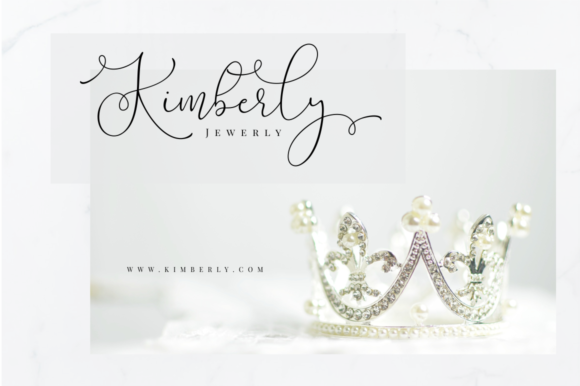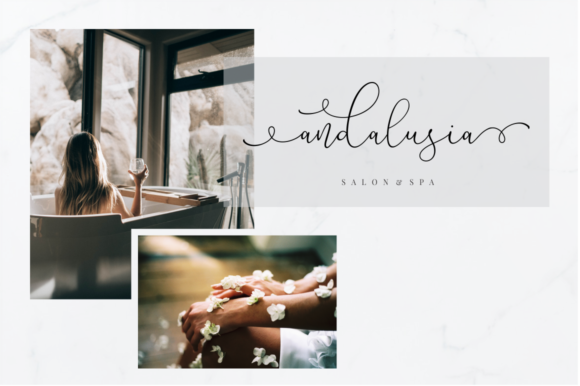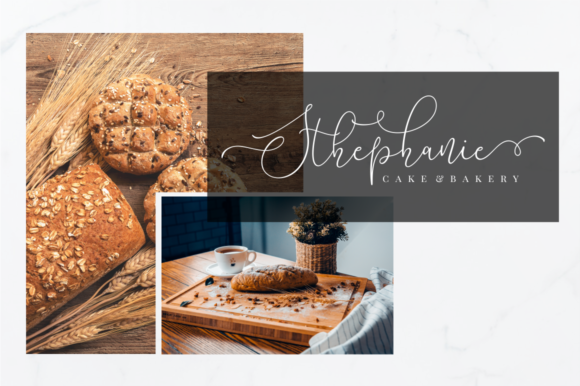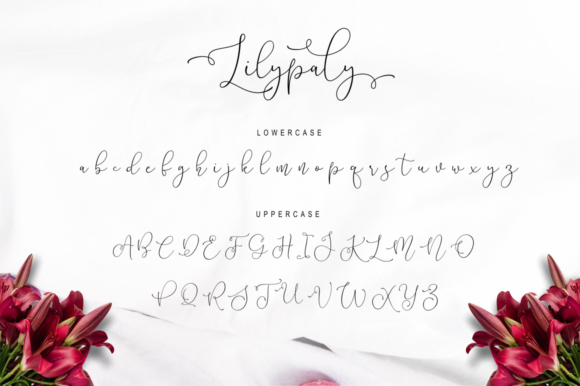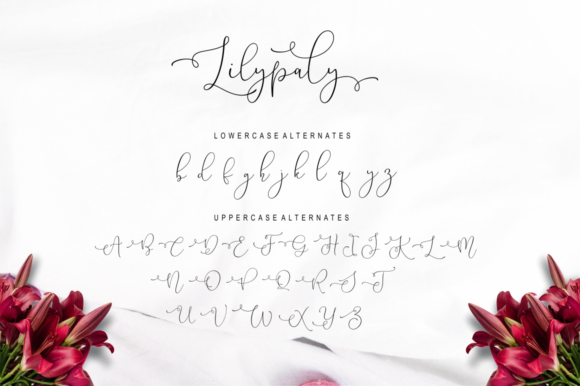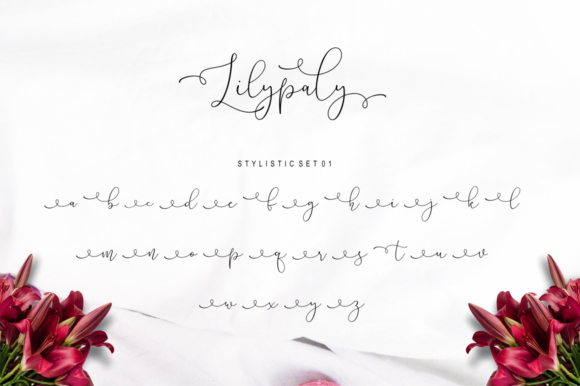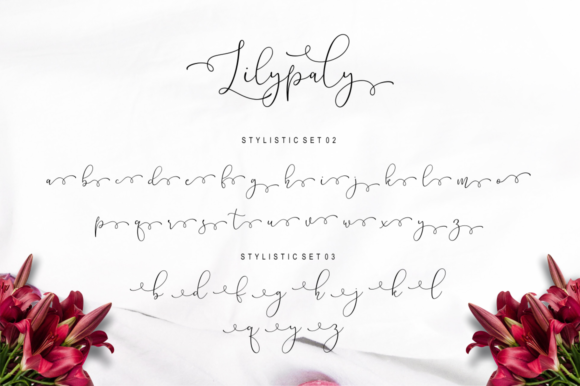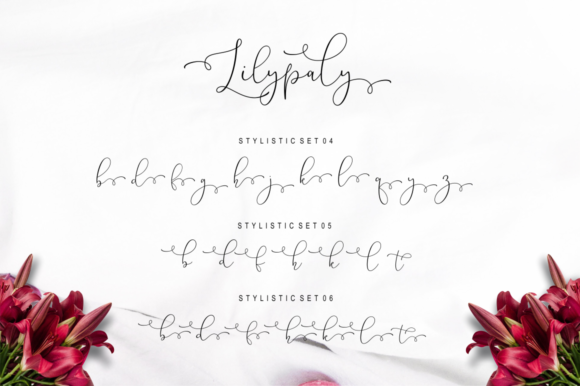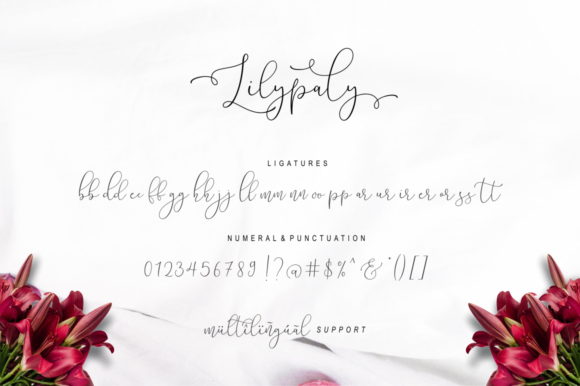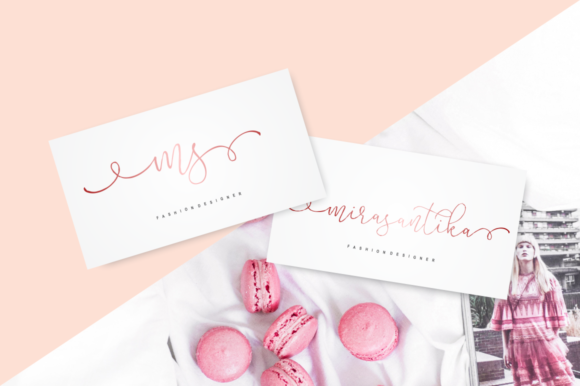
Lilypaly Font
About Lilypaly Font
The Lilypaly is a modern and elegant font with lots of stylistic alternates. It was made carefully so that each letter could be connected well and elegantly either using alternates or not.